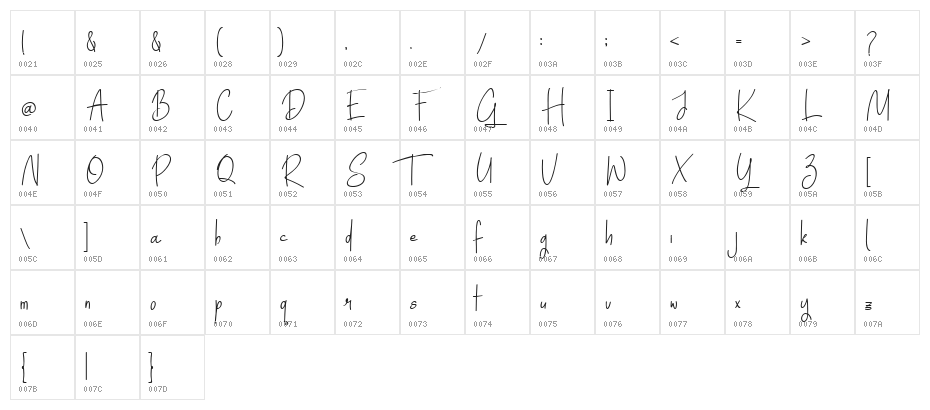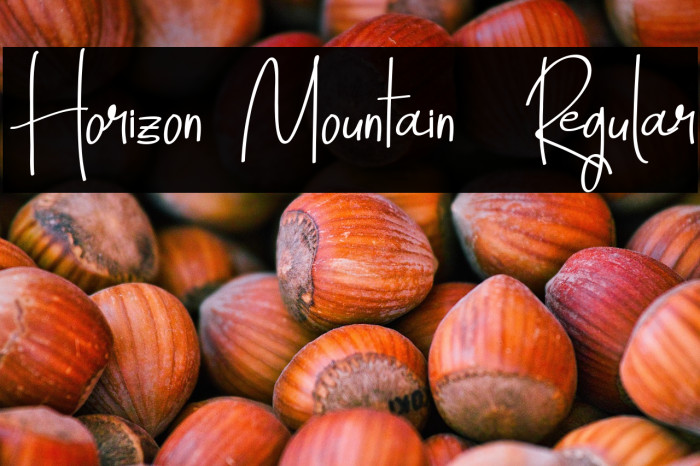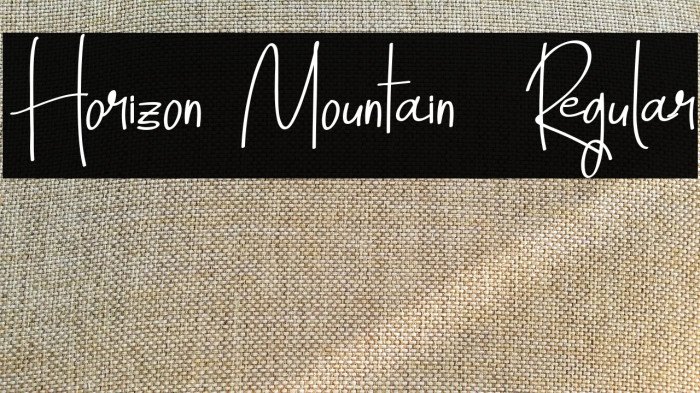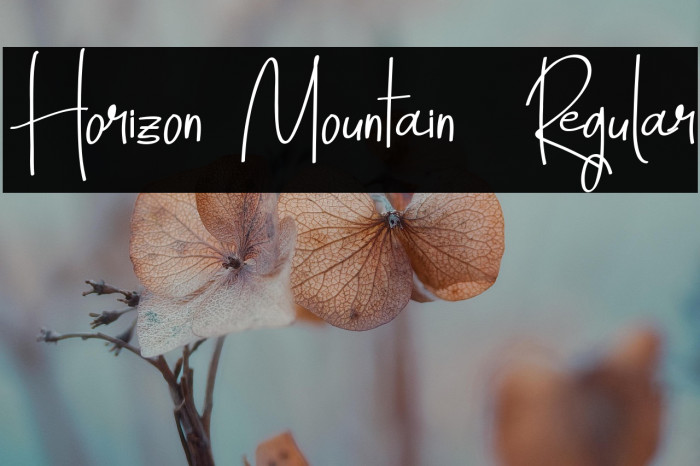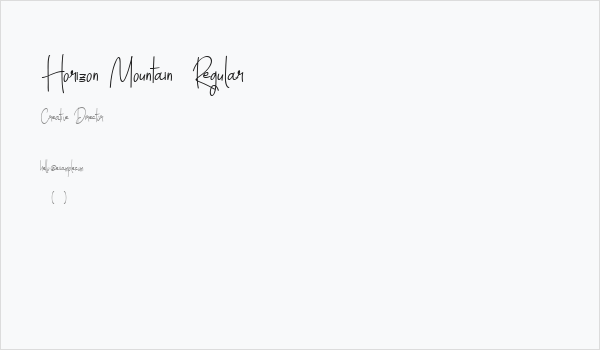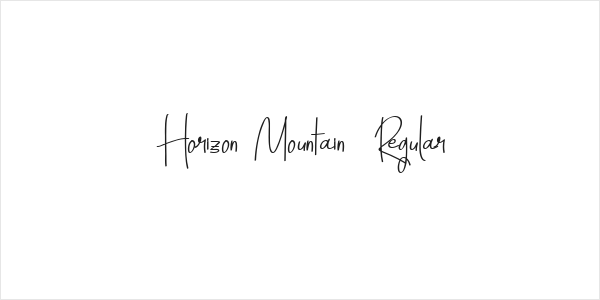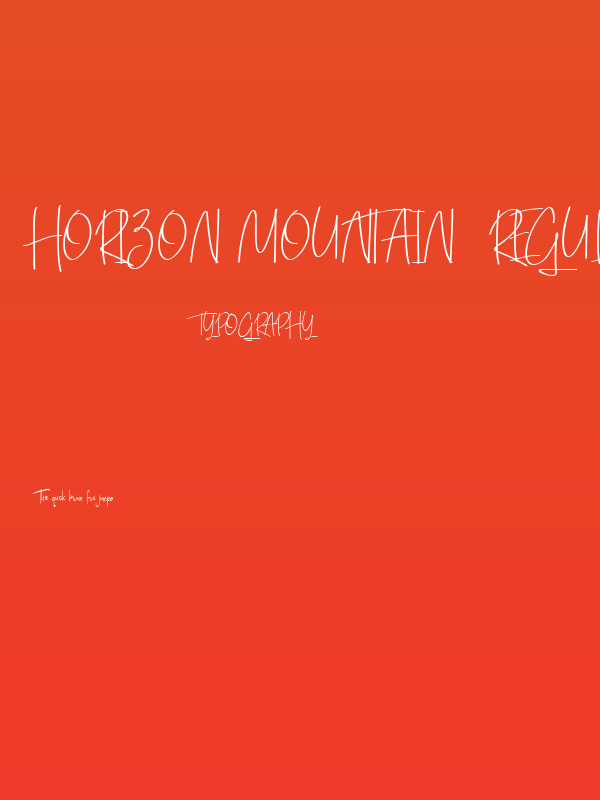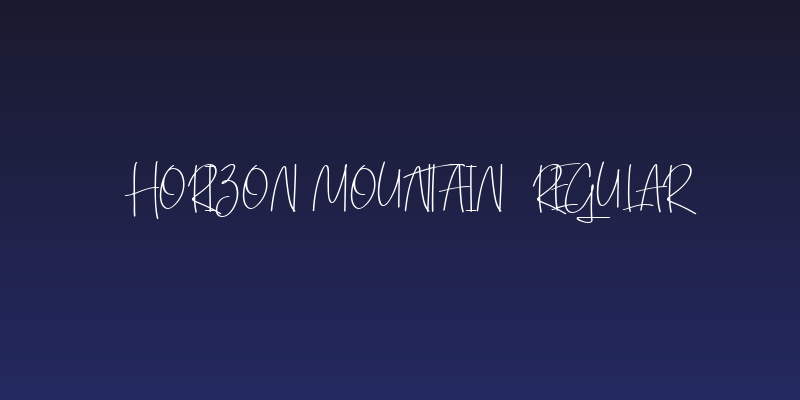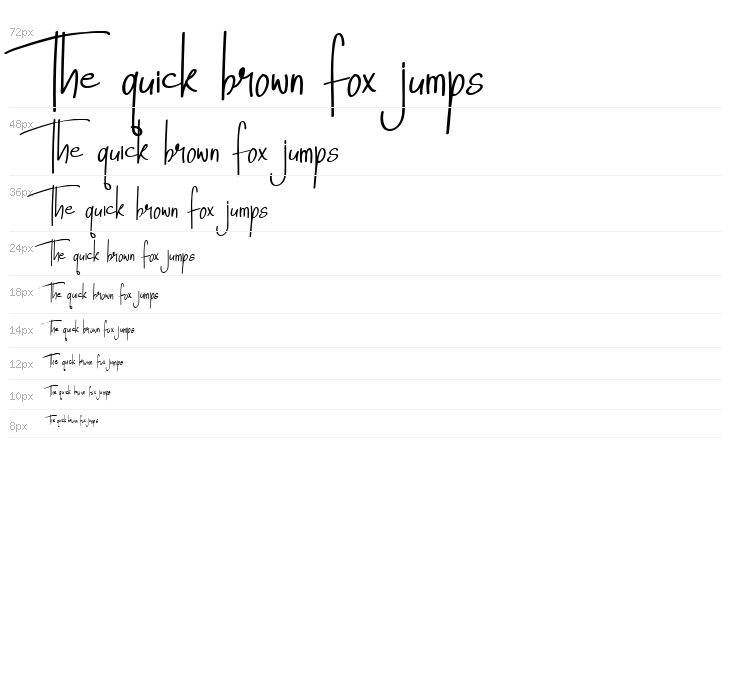
Horizon Mountain Regular Font
Horizon Mountain Regular Description
This font features a unique handwritten style with elongated, flowing strokes that give it a casual yet elegant appearance. The characters are tall and slender, with a slight slant that adds a dynamic feel. The uppercase letters are particularly distinctive, with exaggerated loops and curves that create a sense of movement. The lowercase letters maintain a consistent style, complementing the uppercase with their own subtle flair. The numbers and special characters are designed to match the overall aesthetic, ensuring a cohesive look across all text. This font's playful and artistic nature makes it ideal for creative projects.
| Proposed Projects | Ideal for creative projects such as invitations, greeting cards, and artistic branding. |